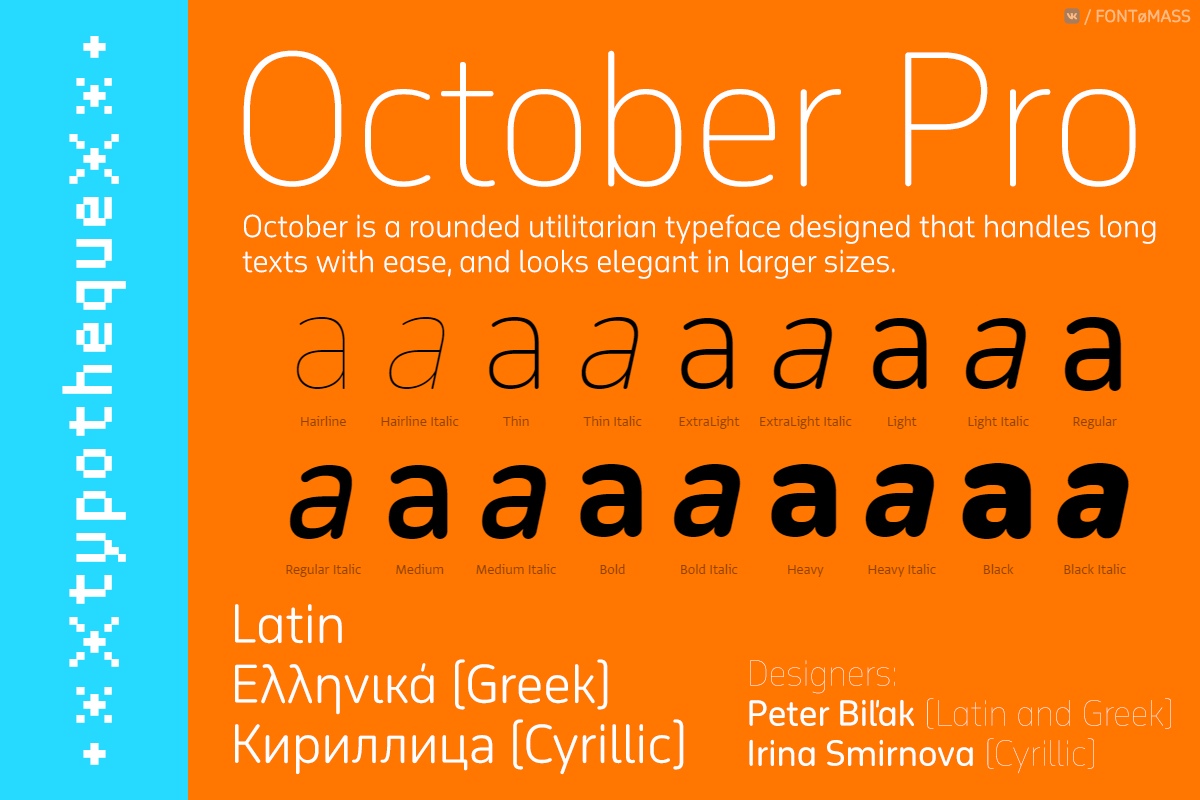
October Pro Suite Font
October Pro Suite Font is perfect for seasonal branding projects, autumn marketing campaigns, harvest festival materials, cozy café signage, artisanal food packaging, fall fashion collections, pumpkin spice product branding, and warm advertising designs. This charming typeface collection works wonderfully in both digital applications and print media where seasonal warmth and autumnal comfort are central design elements.
What makes October Pro Suite Font so exciting is its perfect capture of autumn's golden essence through warm letterforms that evoke the cozy feeling of crisp fall days and harvest celebrations. The font features comfortable characters with seasonal proportions, harvest-inspired curves, and rustic details that create an atmosphere of warmth, comfort, and natural abundance. Its seasonal personality and autumn heritage make it ideal for brands seeking to communicate seasonal joy, comfort food experiences, and the nostalgic charm of fall traditions while maintaining excellent readability and professional quality.
The October Pro Suite Font family includes comprehensive stylistic variations from light to bold weights, along with seasonal alternates and harvest ornamental elements. Each style maintains the typeface's autumnal character while offering extensive character sets including seasonal numerals, fall-inspired punctuation marks, and special symbols designed to enhance autumn communications and seasonal branding efforts across various harvest contexts.
This extraordinary typeface collection represents the perfect marriage of seasonal aesthetics and professional typography for lifestyle and food industries. Whether you're developing autumn product campaigns, creating seasonal restaurant materials, or designing harvest celebration events, October Pro Suite Font Free Download delivers the cozy warmth and versatility needed to capture the magic of fall. The font's seasonal appeal makes it particularly effective for coffee shops, bakeries, seasonal retailers, and businesses celebrating autumn traditions and comfort food experiences.
The carefully crafted seasonal details and optimized autumn performance in October Pro Suite Font ensure both nostalgic authenticity and clear communication across all applications. Its warm presence makes it perfect for seasonal branding, fall marketing campaigns, and harvest communications where its full autumnal character can create emotional connections with audiences seeking the comfort and joy of fall's golden embrace.